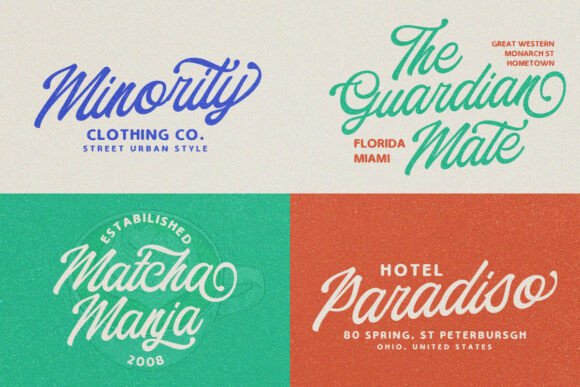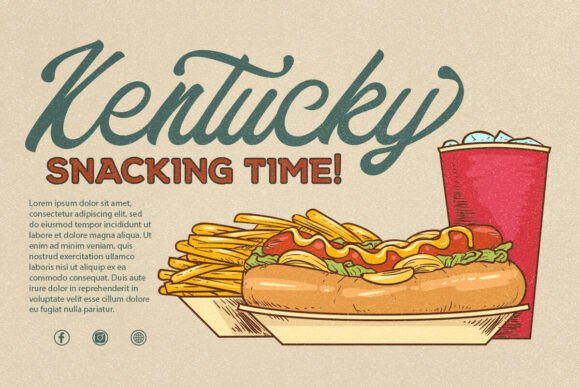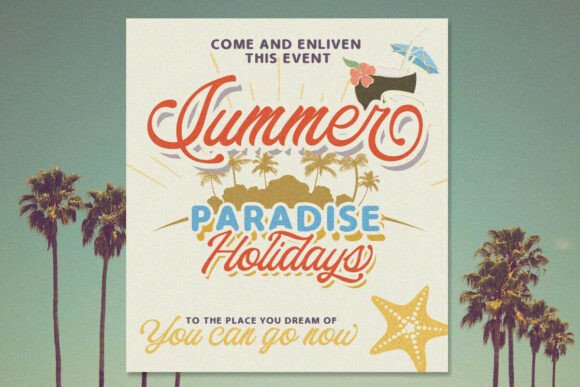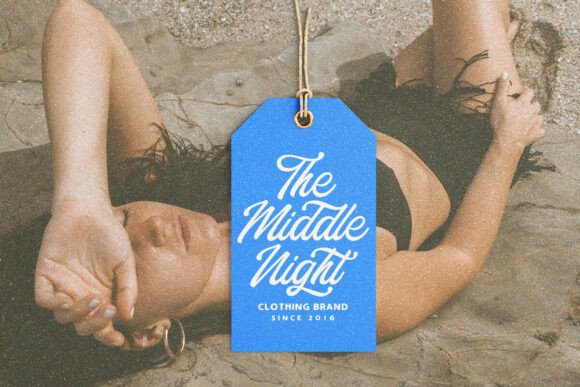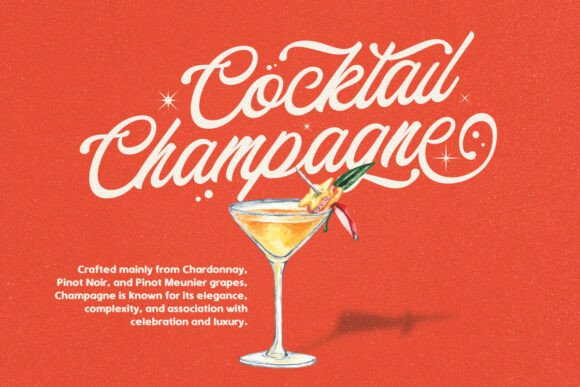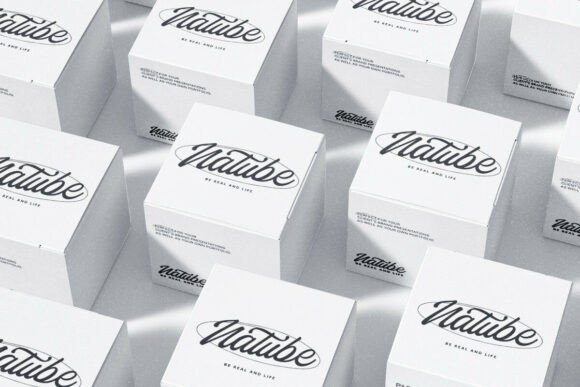
Introduction to Saturide Font
As a designer, you know that finding the perfect font can be a game-changer for your creative project. It’s that moment when the words come together in perfect harmony, and your design suddenly feels alive. I still remember the thrill of discovering a font that perfectly captured the essence of my brand’s personality. That’s exactly what happened when I stumbled upon the Saturide Font – a masterpiece that has been a constant companion in my design journey ever since.
With its unique blend of classy calligraphy and modern flair, the Saturide Font is a design resource that truly stands out from the crowd. Its high quality and versatility make it an ideal choice for designers seeking to elevate their projects to the next level. Whether you’re working on a free download or a paid design, this font is sure to bring a touch of sophistication and elegance to your work.
As a valuable addition to any designer’s toolkit, the Saturide Font offers a transparent background and a range of customization options, making it a highly sought-after design element. So why not fall in love with the Saturide Font and discover the endless possibilities it has to offer for your creative projects?
Key Features of Saturide Font
- Includes a transparent background option, allowing for seamless integration with various design elements.
- Features a clean and modern aesthetic, making it perfect for use in logos, branding, and packaging design.
Honest Review: Saturide Font
As a designer, I’m always on the lookout for high-quality design resources to elevate my creative projects. Recently, I had the chance to try out the Saturide Font, and here’s my honest review.
What works well: ✨ The Saturide Font is incredibly versatile and suitable for a wide range of projects. It comes in multiple weights, from light to bold, making it easy to match with any design style. I also appreciated the transparent background, which allows for seamless layering and blending with other design elements.
- High-quality design that’s perfect for creative projects requiring a modern and sleek aesthetic
- Easy to use and customize, thanks to its intuitive design and range of weights
However, there are a few limitations to consider: ⚠️ The font may not be suitable for very small text sizes, as the lines can become blurry and difficult to read. Additionally, the font family is relatively small, which may limit its versatility in certain design contexts.
Overall, I was impressed with the Saturide Font’s quality and versatility. While it may have some limitations, it’s an excellent addition to any designer’s toolkit, especially for those working on creative projects requiring a modern and sleek aesthetic.
Tips for Getting the Most Out of Saturide Font
Experiment with different font sizes and styles to find the perfect combination for your design. Use the Saturide Font in conjunction with other design elements, such as images and graphics, to create a visually appealing design. Don’t be afraid to try out new things and see what works best for your creative project.
Common Use Cases for Saturide Font
The Saturide Font is ideal for various design projects, including social media graphics, presentations, posters, logos, brochures, infographics, and reports. Its high-quality design and transparent background make it a great resource for designers and non-designers alike.
Can I use Saturide Font with a transparent background?
Yes, Saturide Font supports transparent backgrounds. If you’re using a design application that supports layer blending modes, you can set the font layer to use a transparent background, allowing the underlying design elements to show through. This feature is particularly useful for creating high-quality designs with a clean and minimalist aesthetic.